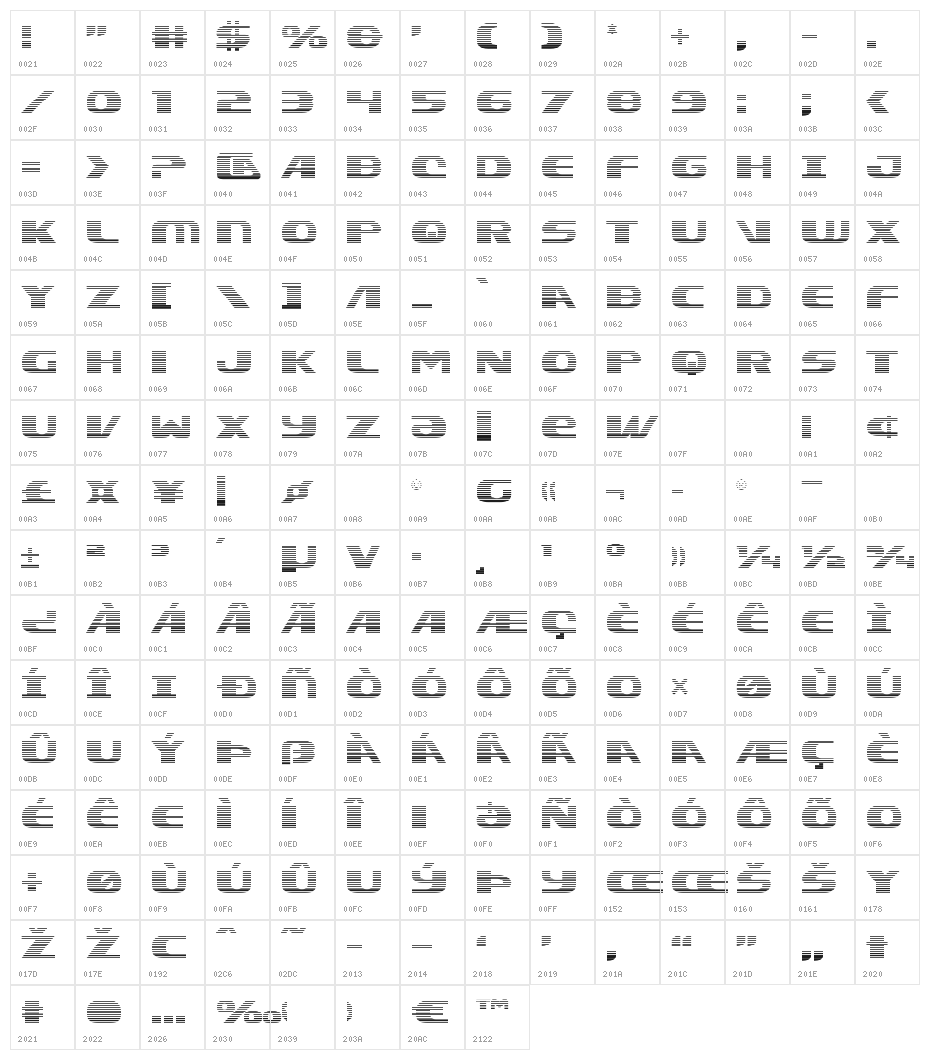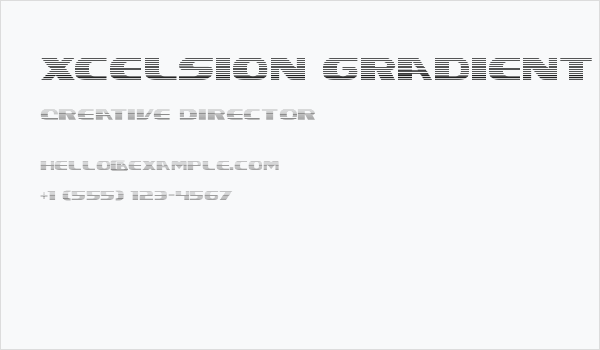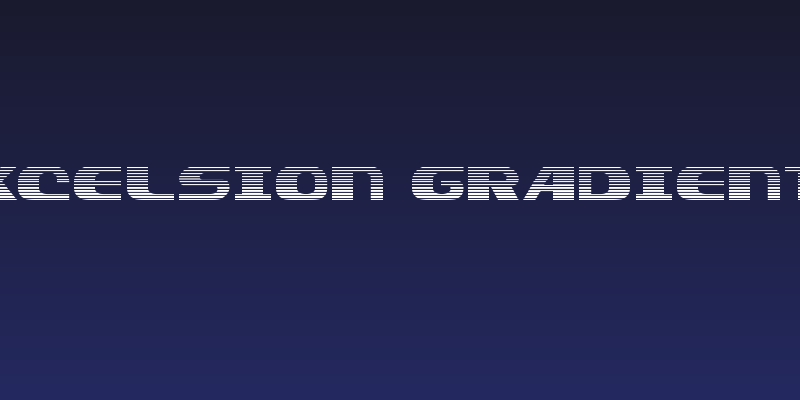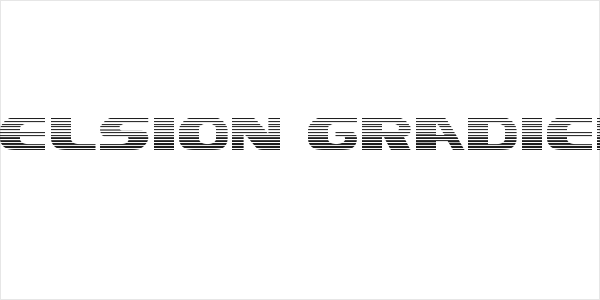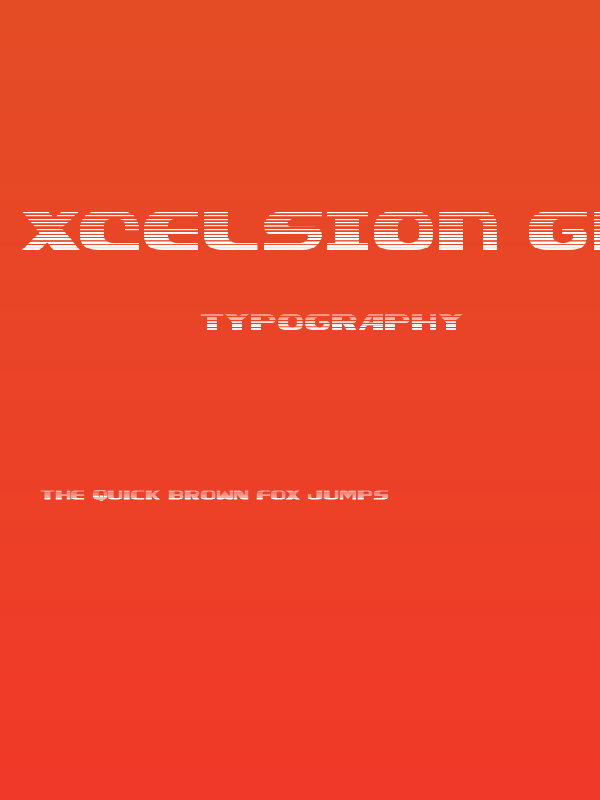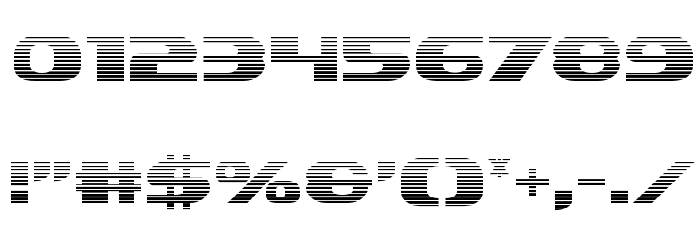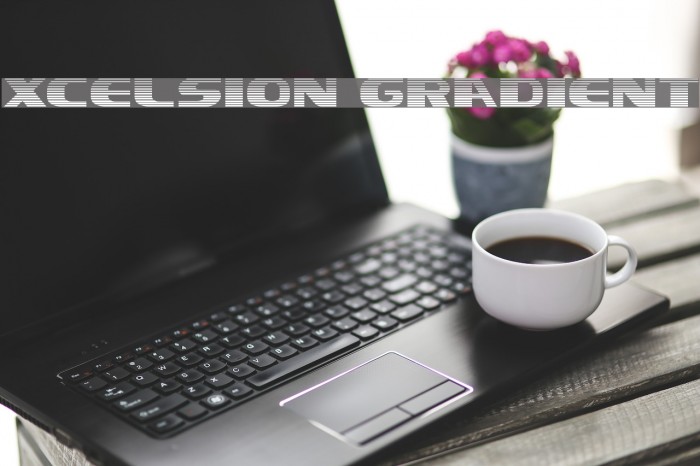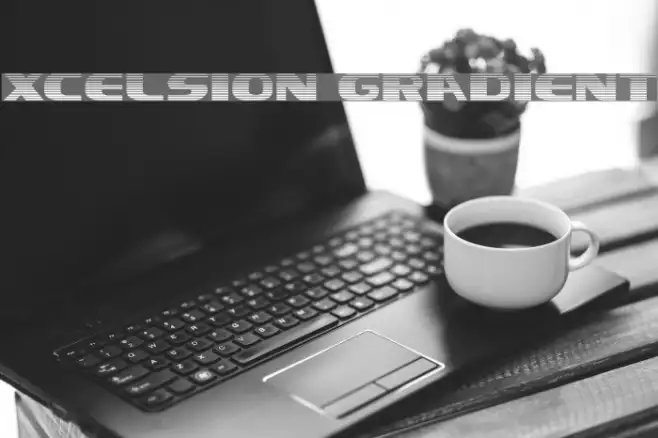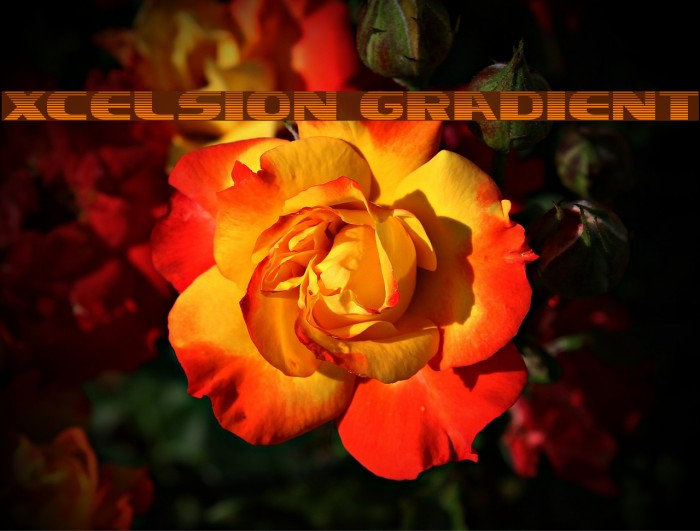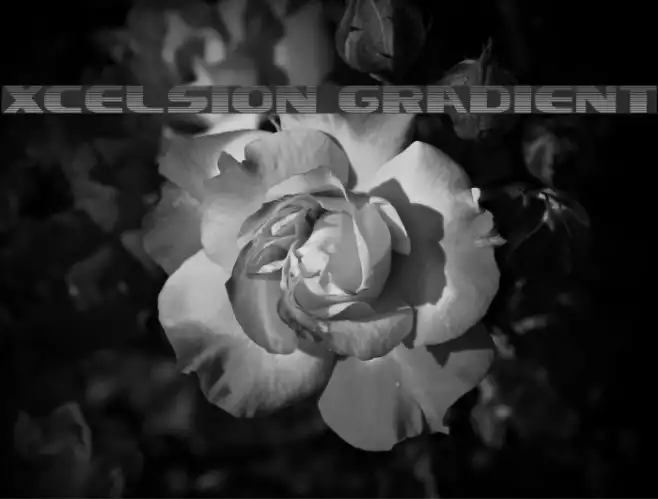
Xcelsion Gradient Font
Xcelsion Gradient Description
This font features a unique, futuristic design with a gradient-like effect created by horizontal lines running through each character. The uppercase and lowercase letters, as well as numbers and special characters, all share this distinctive style. The font's geometric shapes and sharp angles give it a modern and dynamic appearance, making it stand out in any design. The consistent use of horizontal lines adds a sense of movement and energy, while maintaining readability. This font is ideal for projects that require a bold and eye-catching look.
| Proposed Projects | Ideal for technology-themed designs, sci-fi posters, video game titles, and modern branding. |